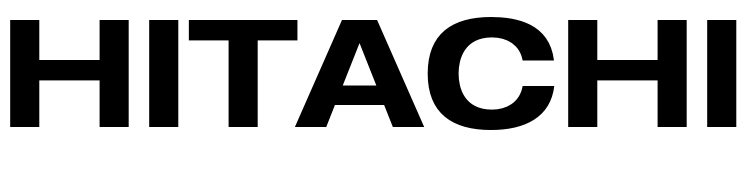
Hitachi Font
ElectronicsHitachi is a Japanese multinational conglomerate company with businesses in various industries such as information technology, electronic devices, power systems, and construction machinery. The company was founded in 1910.
The Hitachi logotype is designed based on Helvetica 73 Bold Extended font. Helvetica 73 is a commercial typeface and you can purchase it here.